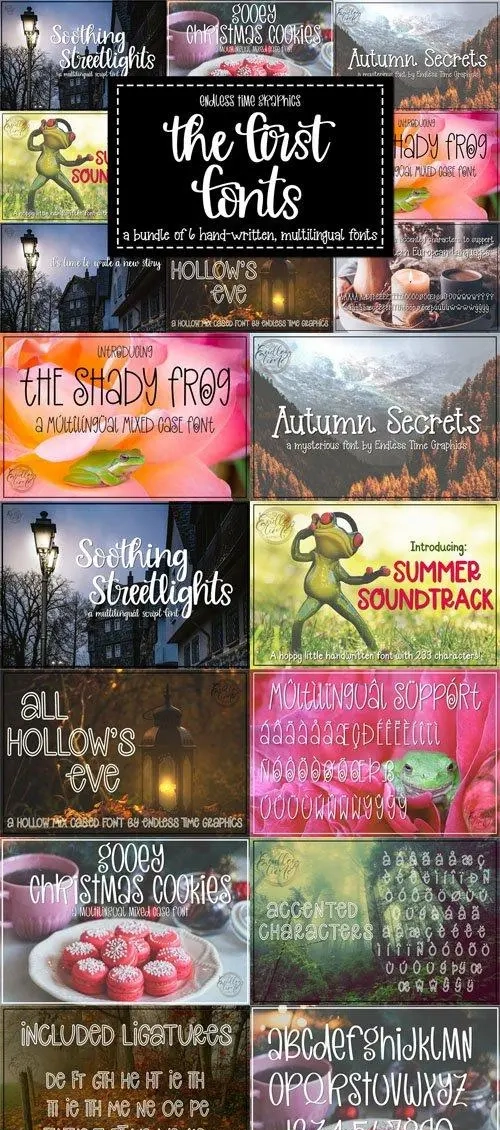
The First Font Bundle – 6 Premium Fonts
Introducing The First Font Bundle, a carefully curated collection of 6 premium fonts that cater to a variety of design needs. Whether you are creating a logo, designing a website, or working on print materials, this bundle offers versatile options to elevate your projects.
• 6 unique font styles
• Multiple weights for each font
• Extensive character sets for multilingual support
The fonts in this bundle are designed with attention to detail, ensuring legibility and aesthetic appeal. Each font comes with various weights, allowing you to choose the perfect style for your project.
Utilize these fonts for branding, web design, print materials, and user interface projects. Their versatility makes them suitable for both personal and commercial use.